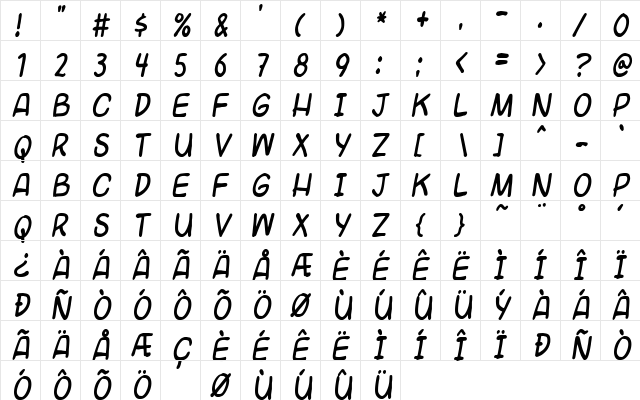
Universal fruitcake Regular
Design Context for Universal fruitcake Typeface
Universal fruitcake is a composed and adaptable typeface that performs quietly and consistently across a wide range of design contexts.
Pro Tip: Use Universal fruitcake in both headline and body roles to test its range before committing to a single application.